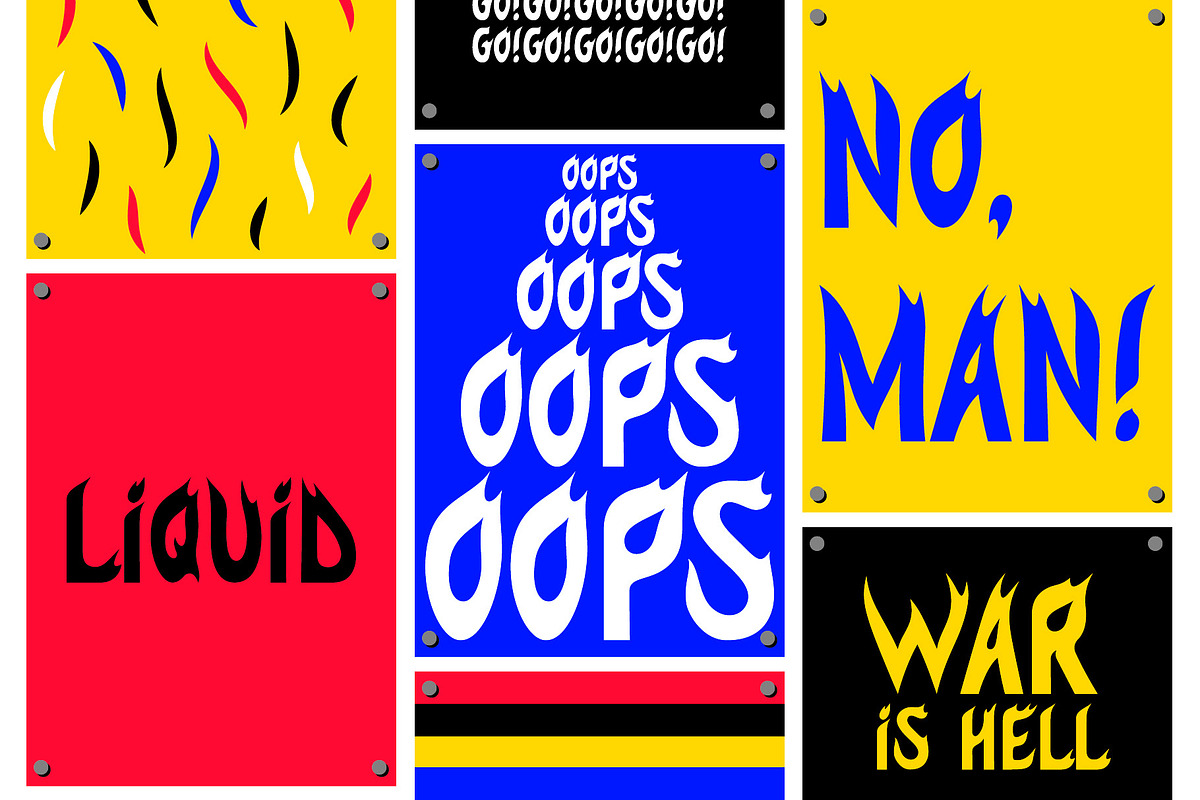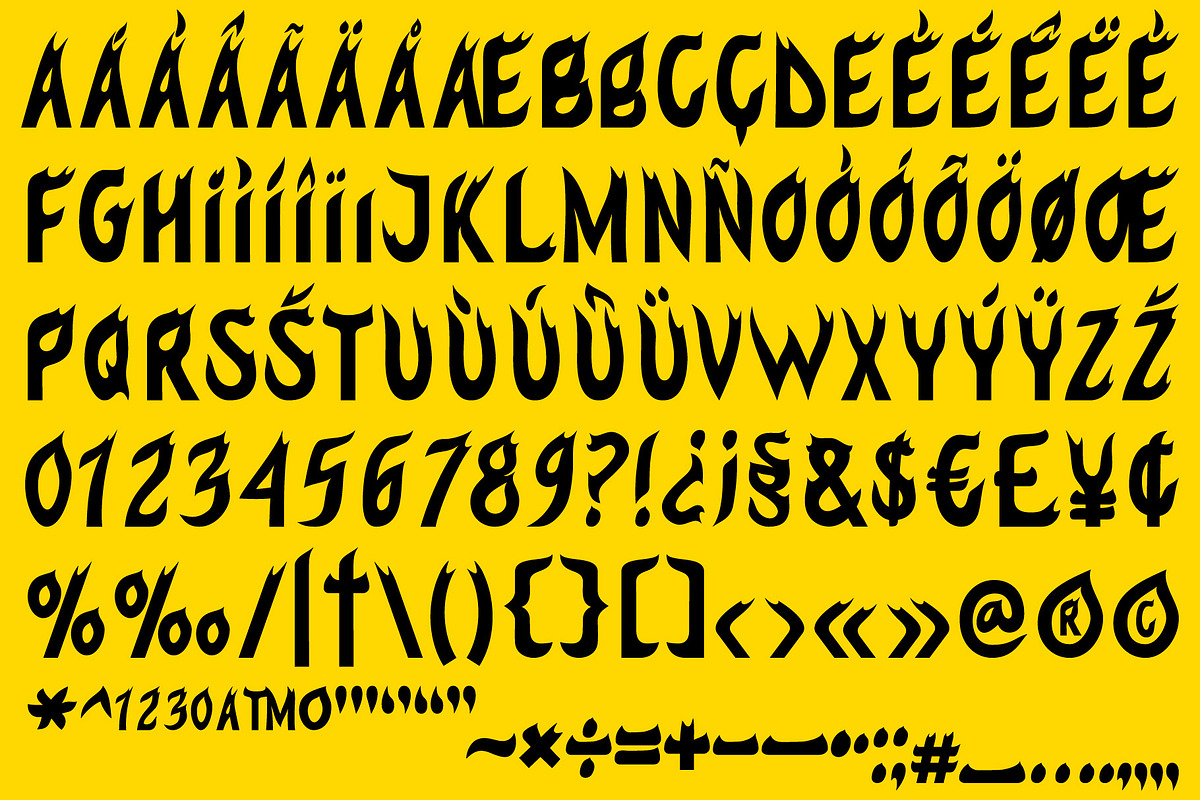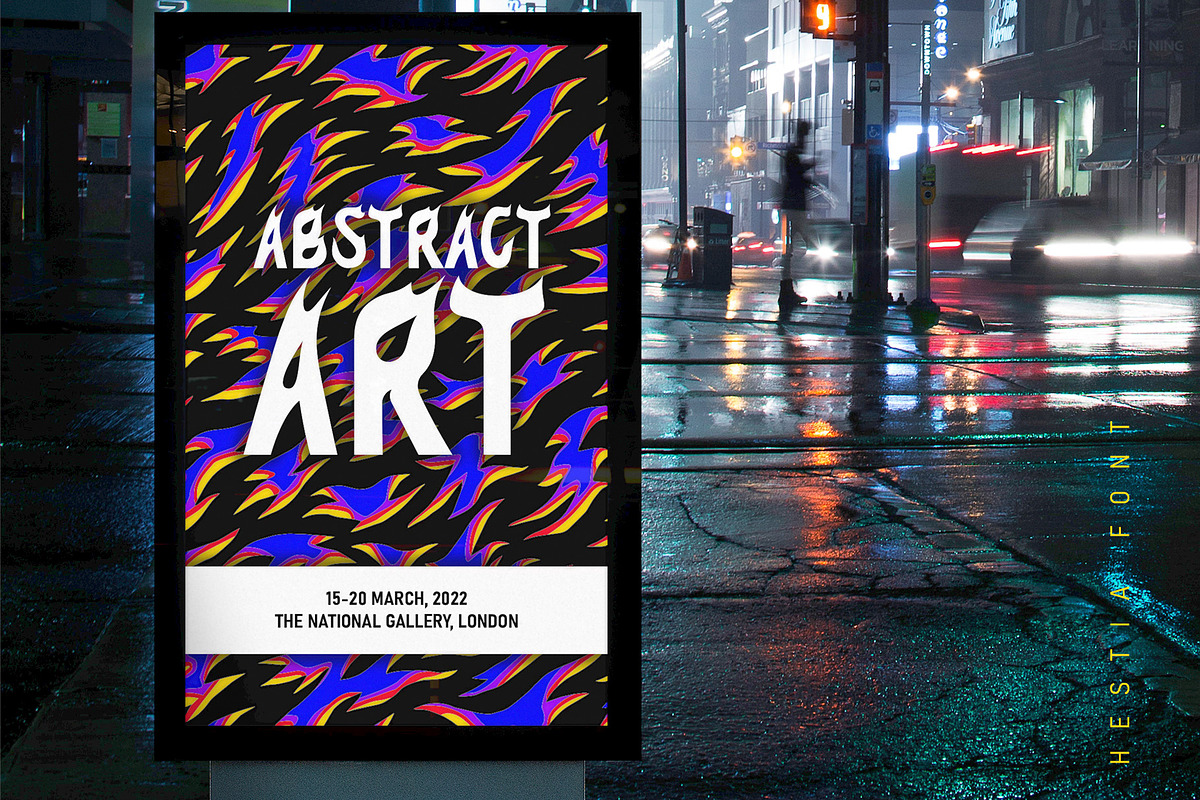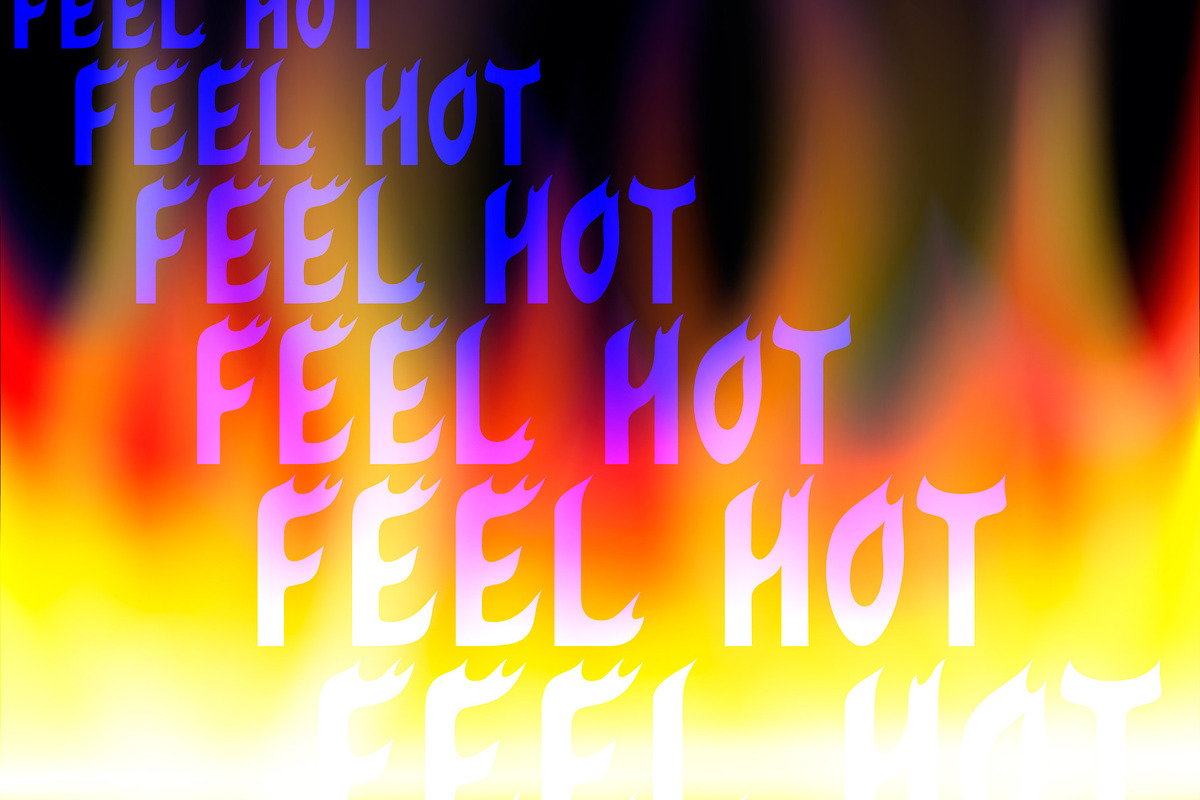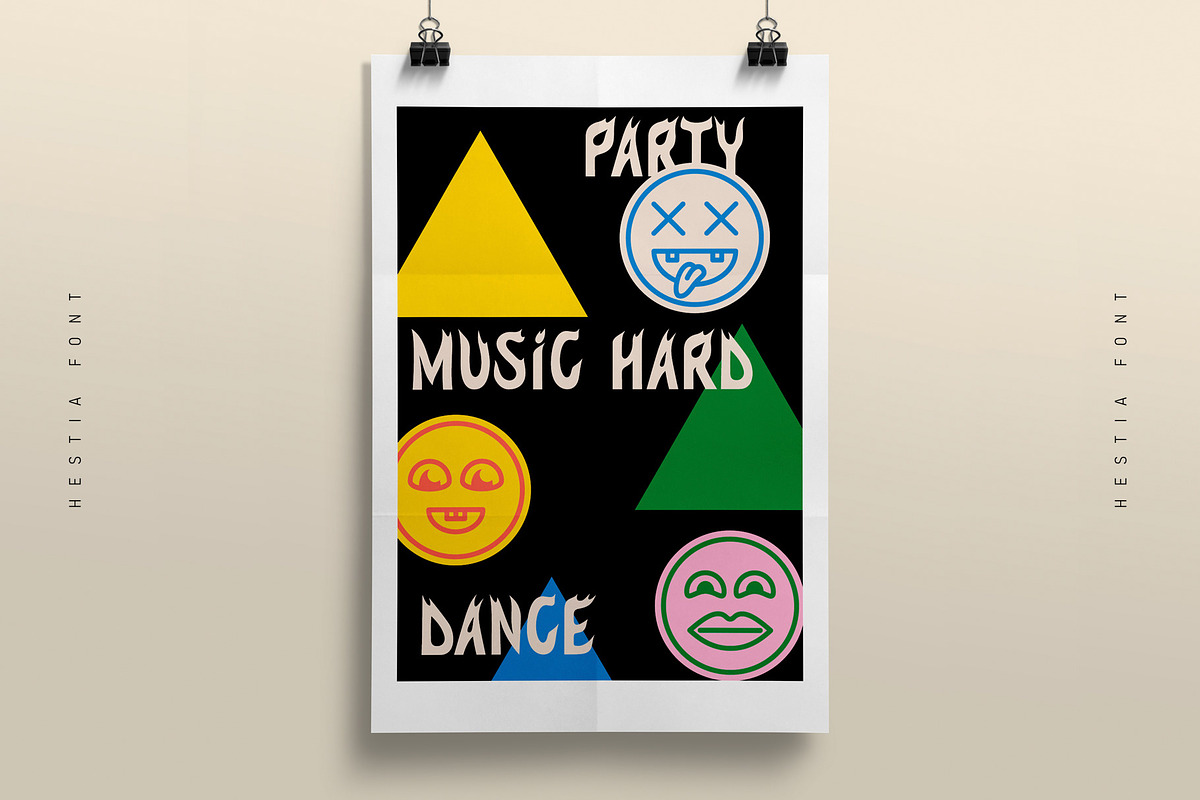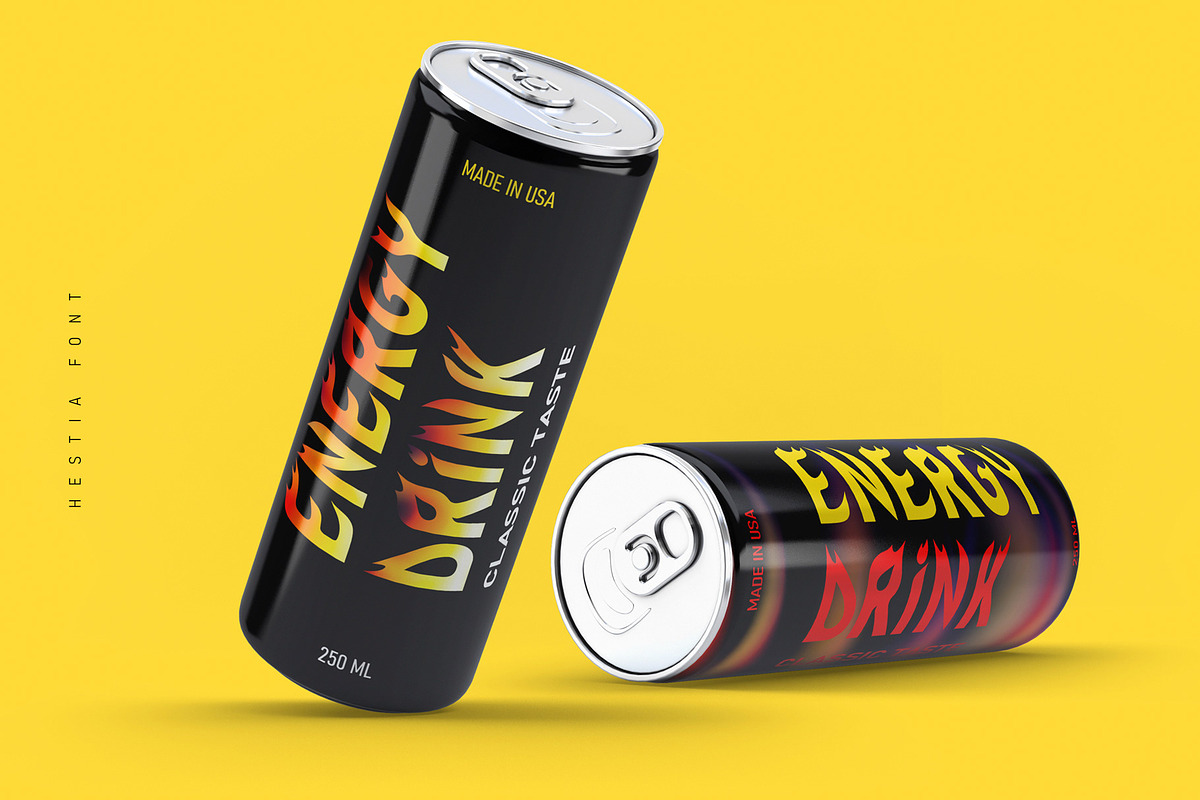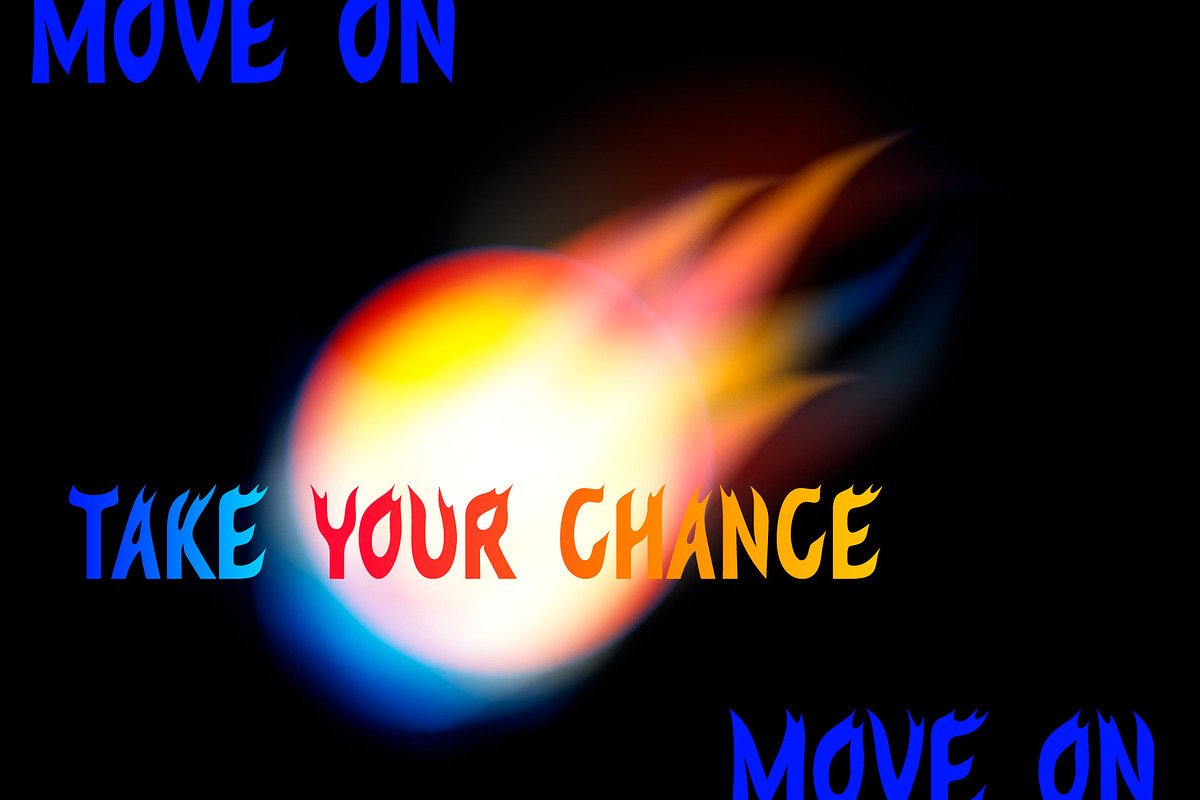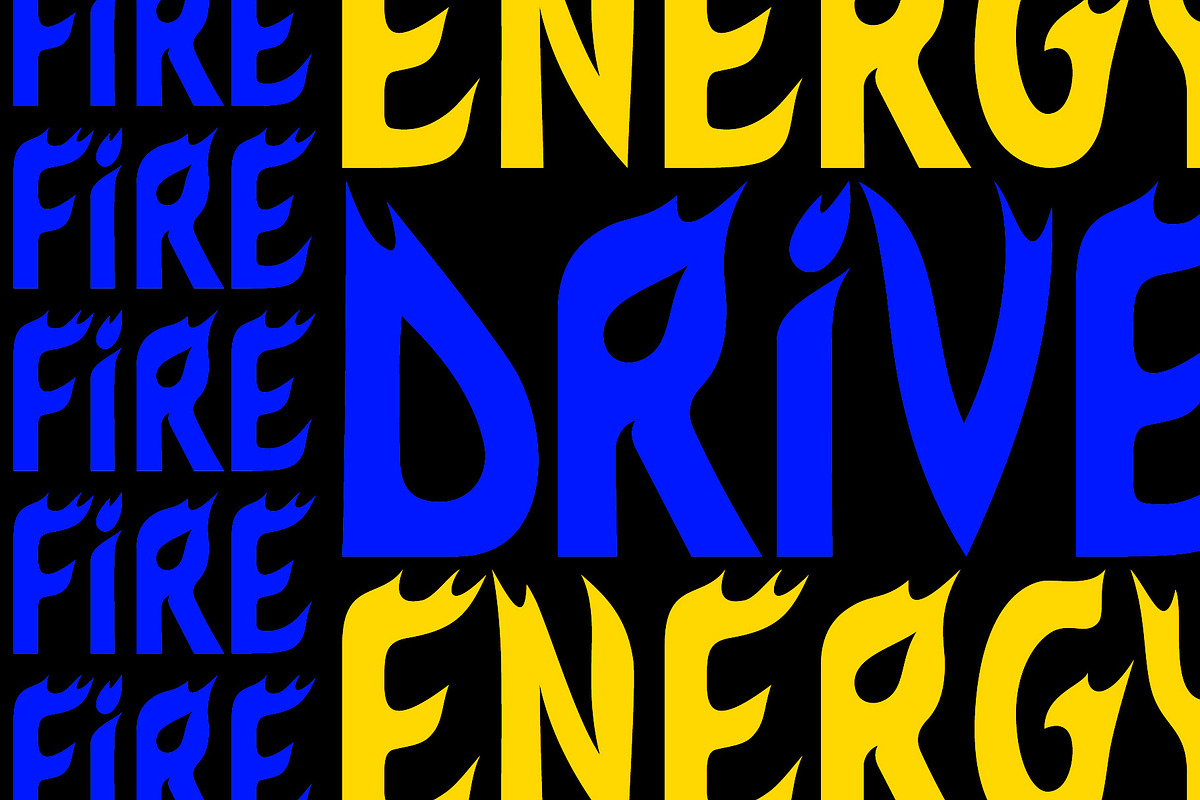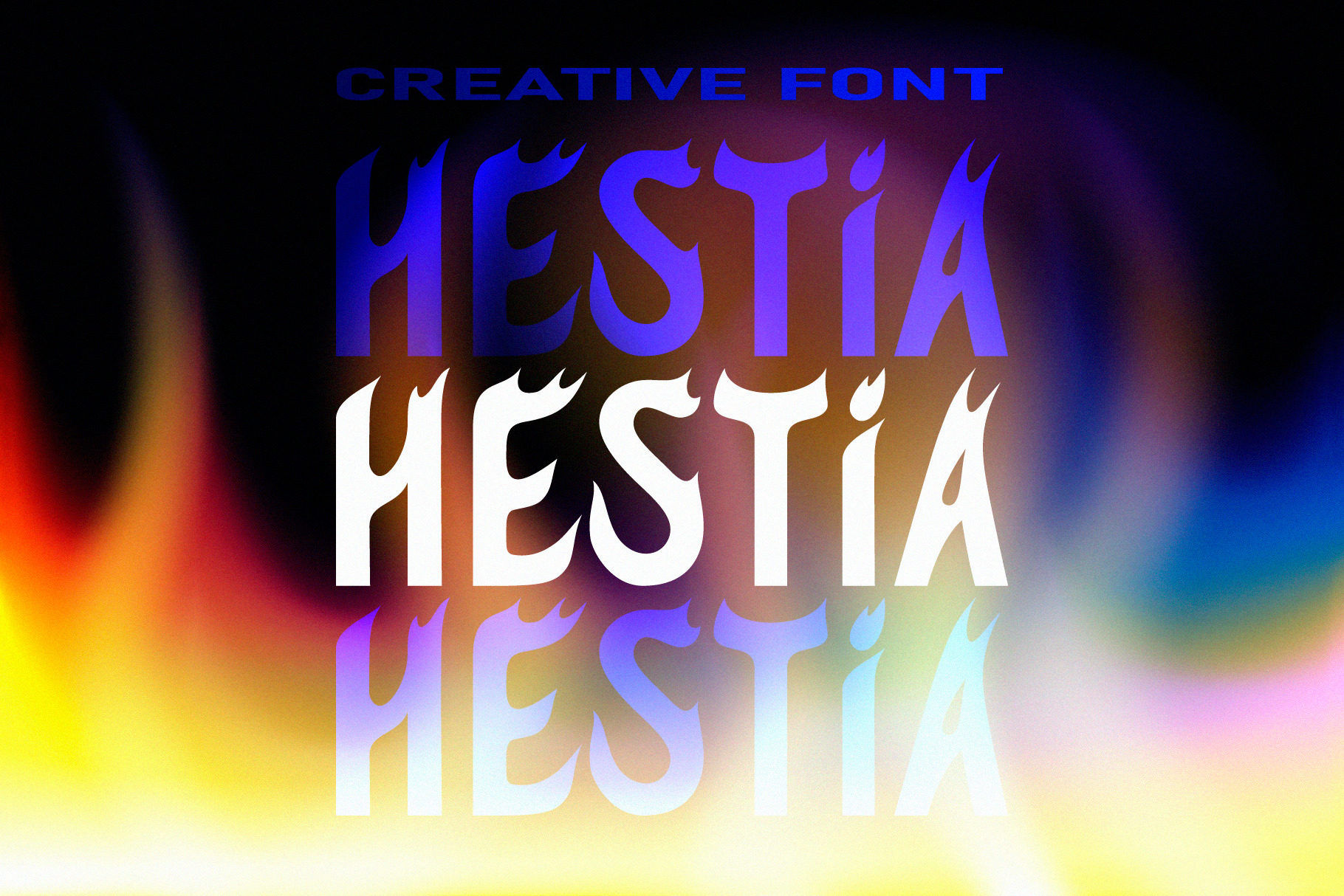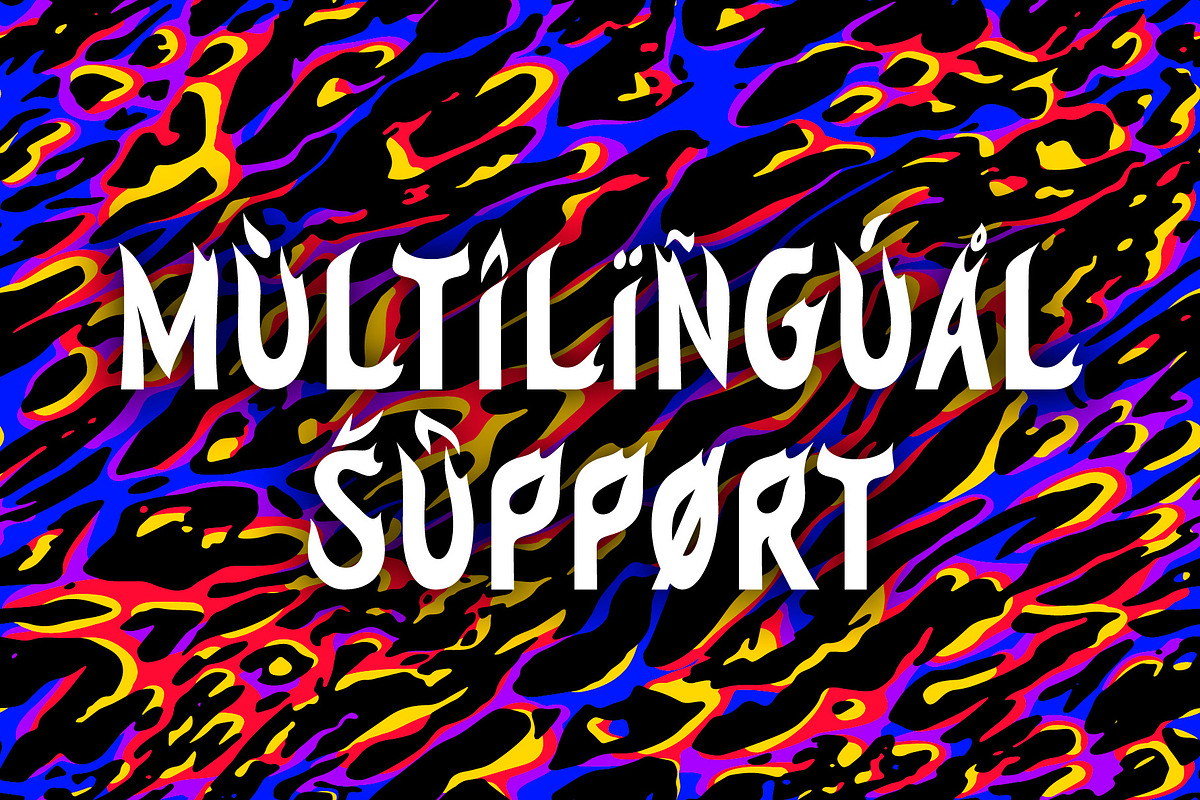
Hestia Creative Font
Hestia is an uppercase decorative font inspired by flames of fire. We've tried to create a dynamic font based on sans-serif fonts. It's works perfectly for headlines, logos, posters, packaging, T-shirts, postcards and many more.
Latin-based Language Support.
- Character set A-Z